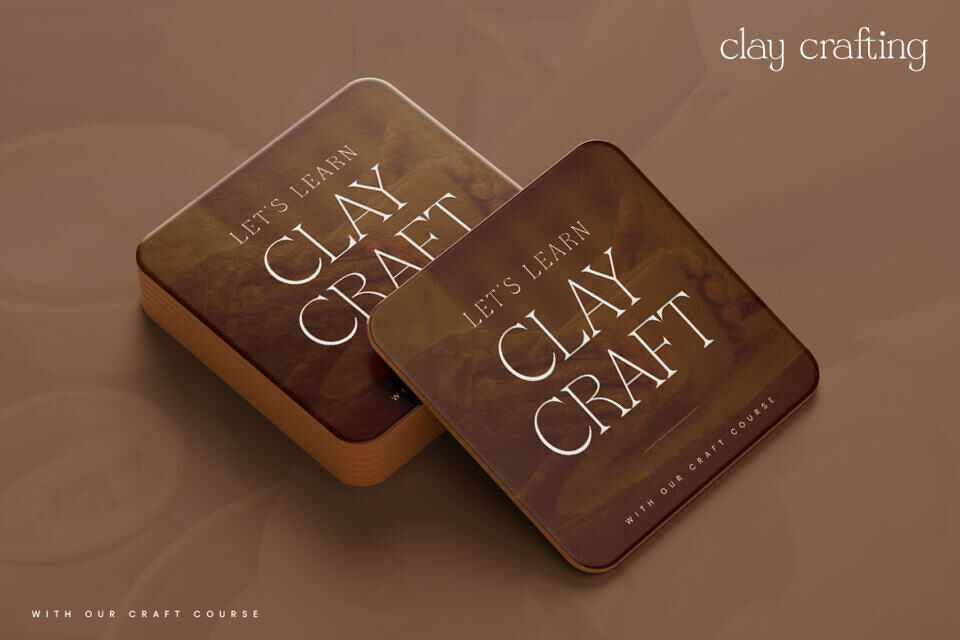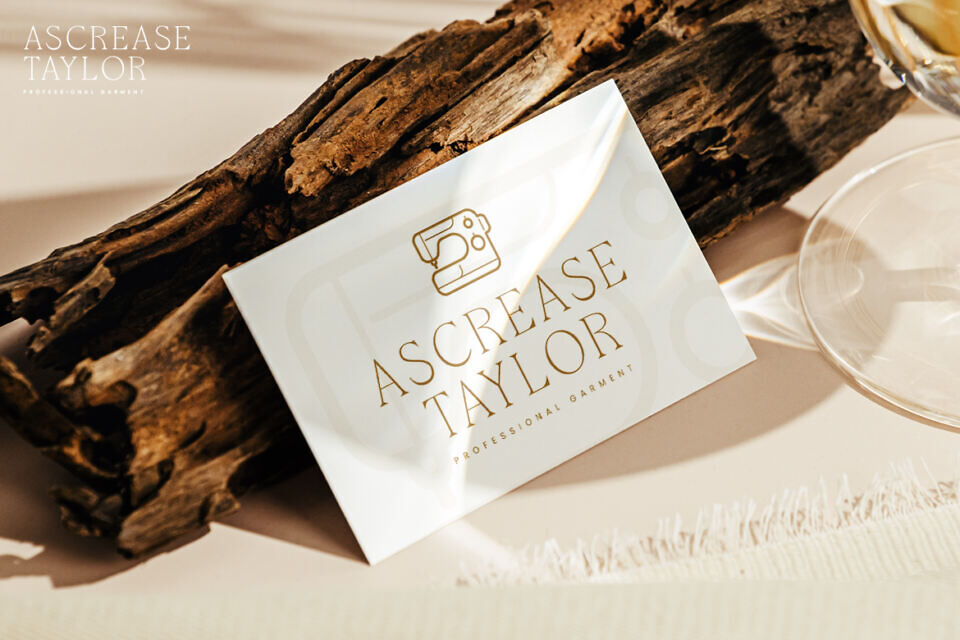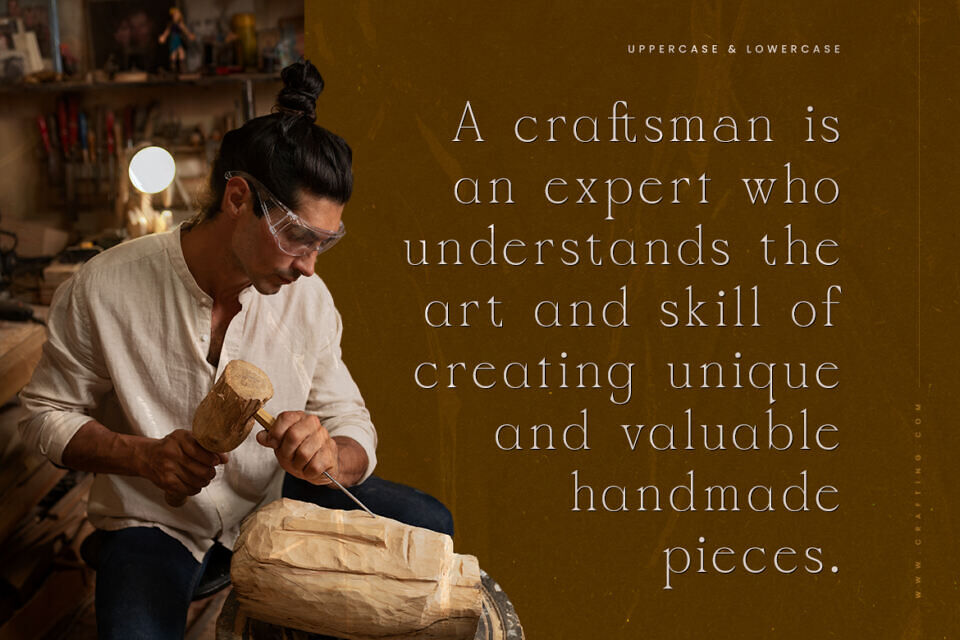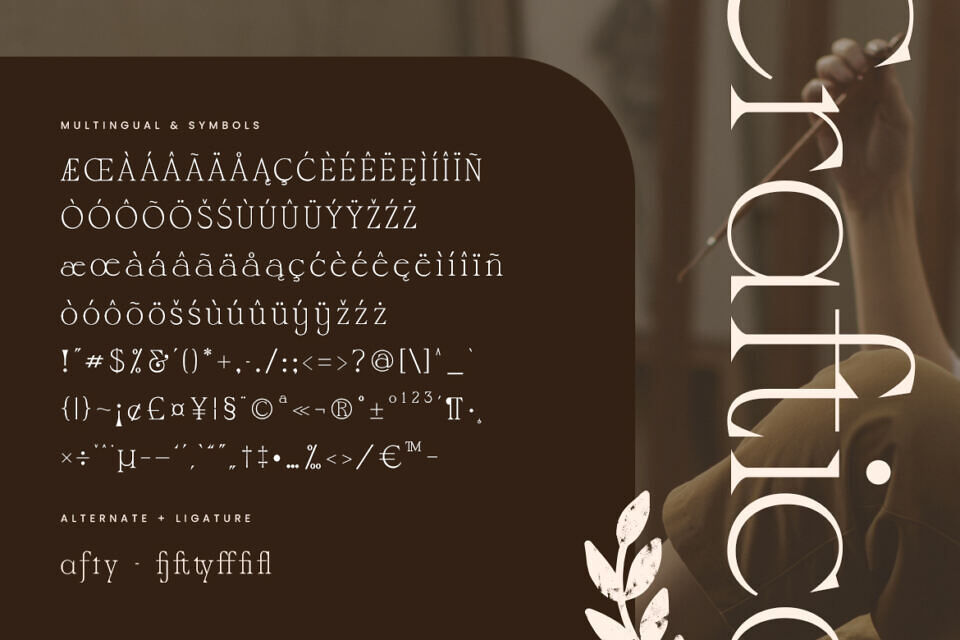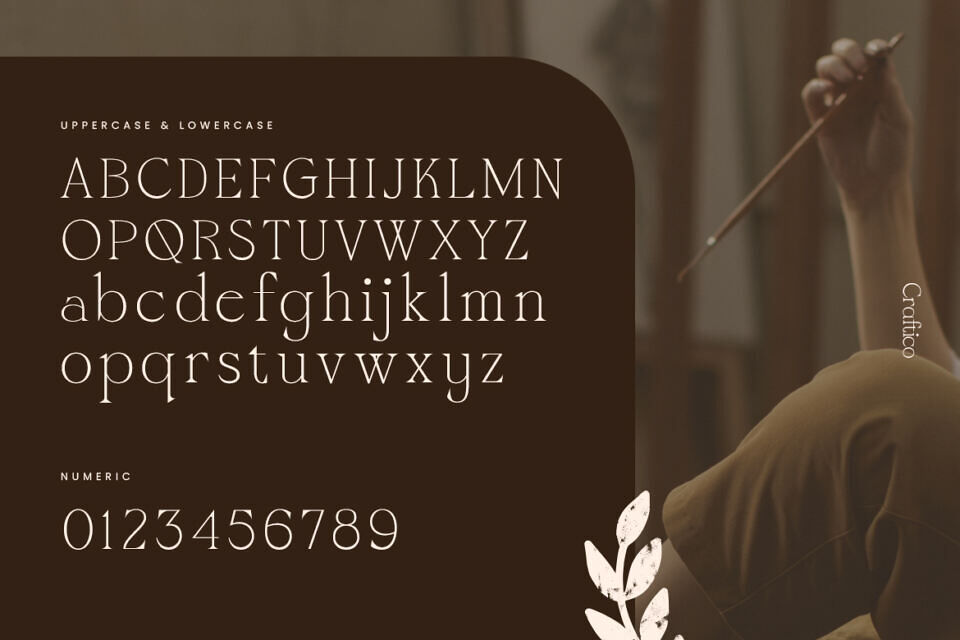
Craftico Font
Introducing Craftico, an elegant serif font that will bring a touch of luxury and grace to all your design projects. With its sleek lines, delicate serifs, and the graceful contrast between thick and thin strokes, Craftico Font is designed to exude a sophisticated aura and a timeless yet modern classic beauty.
Craftico is the ideal choice for designers seeking typography that is not only beautiful but also possesses enduring appeal.